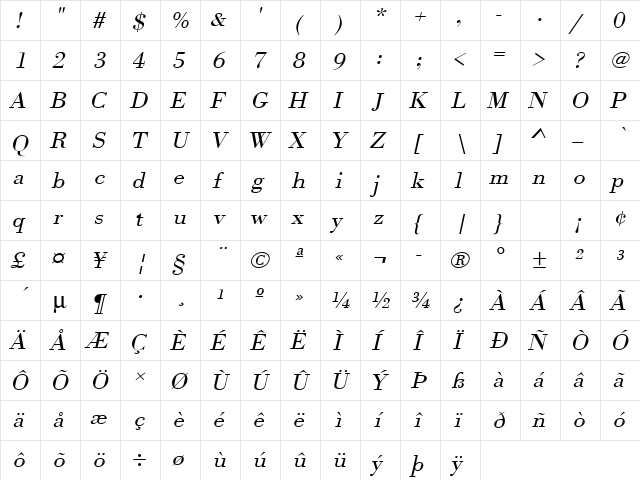
URWBodoniTLigExtWid Oblique Font Preview
URWBodoniTLigExtWid Oblique
Design Context for URWBodoniTLigExtWid Typeface
URWBodoniTLigExtWid is a composed and adaptable typeface that performs quietly and consistently across a wide range of design contexts. The dynamic lean of this cut emphasises speed and emphasis in any layout.